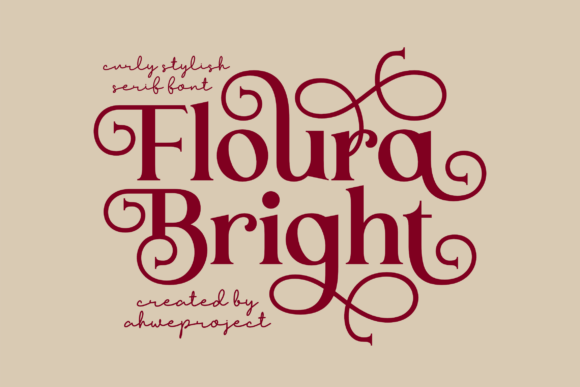
Discover the Magic of Floura Bright Font
Have you ever found yourself stuck in front of a blank page, trying to conjure up the perfect design to capture the essence of your project? You know, that elusive moment when the words flow effortlessly onto the screen, and the entire concept comes together in a burst of creative genius? For designers, this is the holy grail – and it all starts with the right font.
Enter Floura Bright Font, a stunning serif font that combines elegance and whimsy in a single, swoon-worthy design. Its intricate swirls and bold structure make it the perfect choice for projects that demand a touch of sophistication and charm. Whether you’re crafting a luxury brand, designing an invitation, or working on editorial content, Floura Bright Font adds a unique personality to your work, elevating it from ordinary to extraordinary.
Floura Bright Font Key Features
- Font Size: The font comes in multiple weights, ranging from 100 to 900, providing a range of options for designers and typographers to achieve the desired visual effect.
- Resolution: Designed for high-resolution displays, Floura Bright Font is optimized for use at 300 DPI and above, ensuring crisp and clear typography in digital applications.
- Unique Characteristics: This font features a unique blend of modern and elegant design elements, with subtle rounded edges and refined lines that create a sophisticated and professional look.
- Language Support: Floura Bright Font supports a wide range of languages, including Latin, Cyrillic, and Greek scripts, making it a versatile choice for global branding and design projects.
Floura Bright Font Review
As a designer, I was excited to dive into the Floura Bright Font and see if it lived up to its promise of bringing a touch of whimsy and elegance to any design project. Here’s my honest review:
- Unique and playful character set – Floura Bright Font’s irregular letterforms and creative flourishes make it perfect for adding a touch of personality to your designs.
- Excellent legibility – Despite its whimsical feel, Floura Bright Font is surprisingly easy to read, even at smaller sizes.
- Perfect for creative industries – This font is a great choice for designers working in the fashion, beauty, or lifestyle industries, where a touch of elegance and sophistication is key.
- Limited language support – Floura Bright Font may not be the best choice for multilingual designs, as its character set is limited.
- May not be suitable for body text – While Floura Bright Font is perfect for headings and titles, it may be too playful for large blocks of body text.
- Not ideal for small sizes – While the font is legible, it may become difficult to read at very small sizes.
Overall, I was impressed by Floura Bright Font’s unique character and excellent legibility. While it may have some limitations, it’s a great choice for designers looking to add a touch of elegance and whimsy to their projects. Just be mindful of its limitations, and use it in the right context.
Tips for Getting the Most Out of Floura Bright Font
Use Floura Bright Font for headings, titles, and short paragraphs to create visual interest.
Pair it with bold colors and contrasting backgrounds to make it stand out.
Experiment with different font sizes and styles to create a unique look.
Use Floura Bright Font for:
– Creative projects, such as infographics, posters, and social media graphics.
– Branding materials, such as logos and business cards.
– Digital publications, such as ebooks and magazines.
Q: What is the character set and language support for Floura Bright?
Floura Bright includes a comprehensive character set with support for Latin, Cyrillic, Greek, and other languages. The font covers a wide range of languages, including English, Spanish, French, German, Italian, Portuguese, Dutch, Russian, Chinese, Japanese, and Korean. However, please note that some languages may require additional font files or formatting